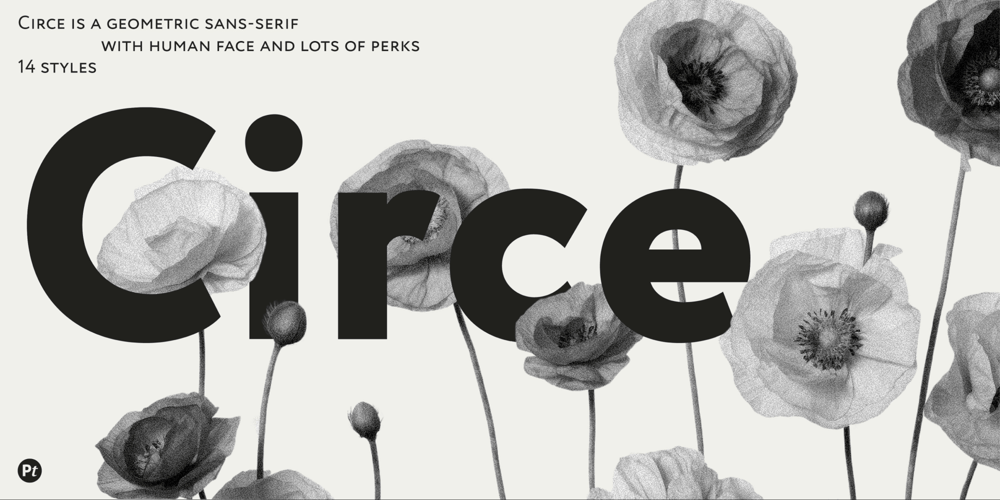
Circe Font Family was designed by Alexandra Korolkova, Maria Selezeneva and published by ParaType. Circe contains 14 styles and family package options. Circe⢠is a geometric sans-serif with some humanist qualities. It consists of seven weights from Thin to Extra Bold in both Normal and Italic styles. Circe, like the Greek goddess it is named after, is capable of metamorphosis. While being clean and simple in its basic form, Circe can become intricate and fancy with its numerous decorative glyph variations. The extensive character set provides support for almost all European languages based on Latin and Cyrillic scripts. Abundant alternates and swash variants organized in stylistic sets inspire creative design options. Circe is good for small point size paragraphs as well as for headlines and posters. The typeface was designed by Alexandra Korolkova and released by Paratype in 2011. The Italic styles were added in 2018 by Alexandra Korolkova and Maria Kharlamova (Selezeneva).